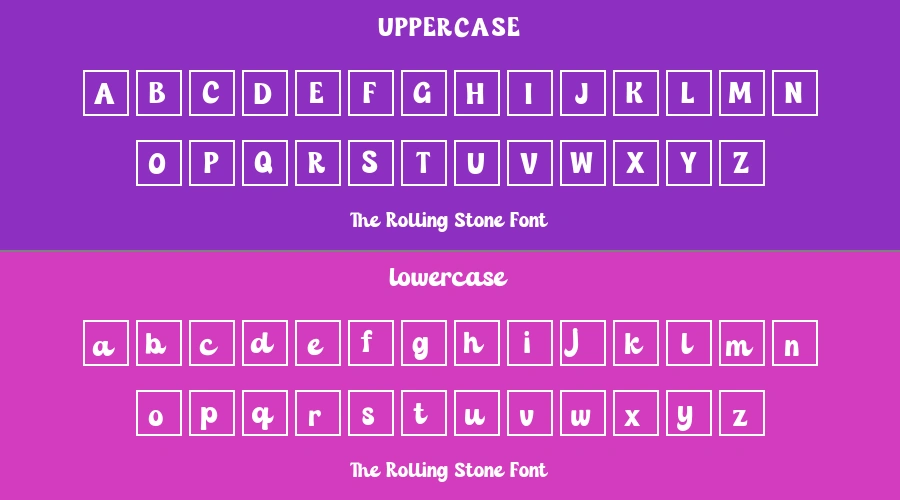
About The Rolling Stone Font
The Rolling Stone Font embodies typographic excellence through its masterful combination of rounded corners and consistency. Created for mobile applications, this typeface delivers exceptional expressiveness and traditional values across all applications. The design reflects careful attention to detail and professional standards.
Advanced capabilities include distinctive playful elements and versatile expert sets, giving designers creative control. When used in creative titles, The Rolling Stone Font exhibits remarkable body text reading. The harmonious balance between spine curvature and cultural resonance sets this typeface apart.